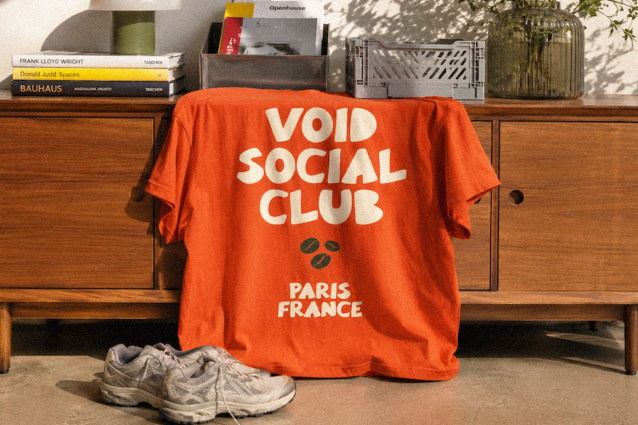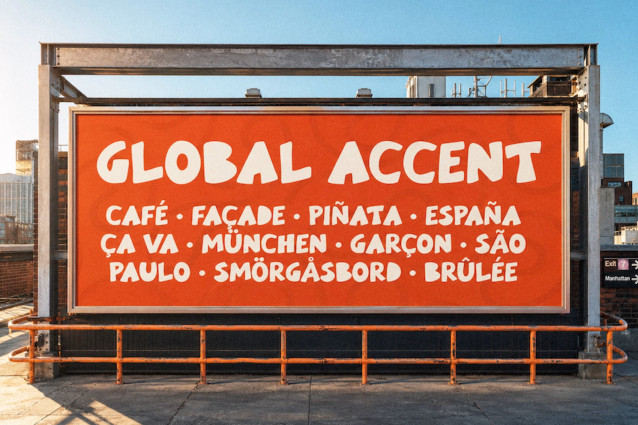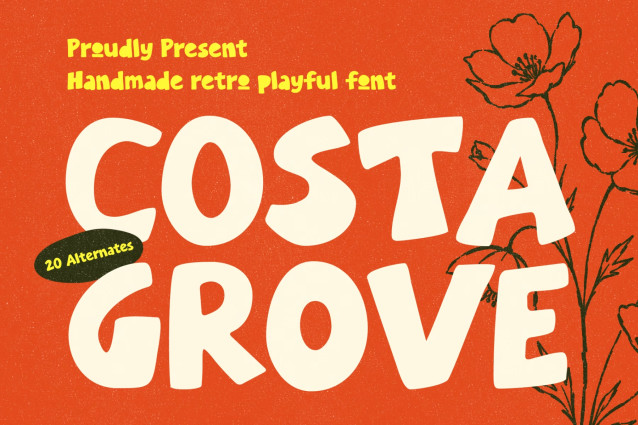
Costa Grove Font
Costa Grove is a handmade retro playful font designed to bring warmth, charm, and a laid-back vintage feel to your projects. With its chunky, rounded strokes and quirky hand-drawn character, every letter feels friendly, bold, and full of personality. It’s a display typeface made for designs that want to stand out and feel genuinely human.